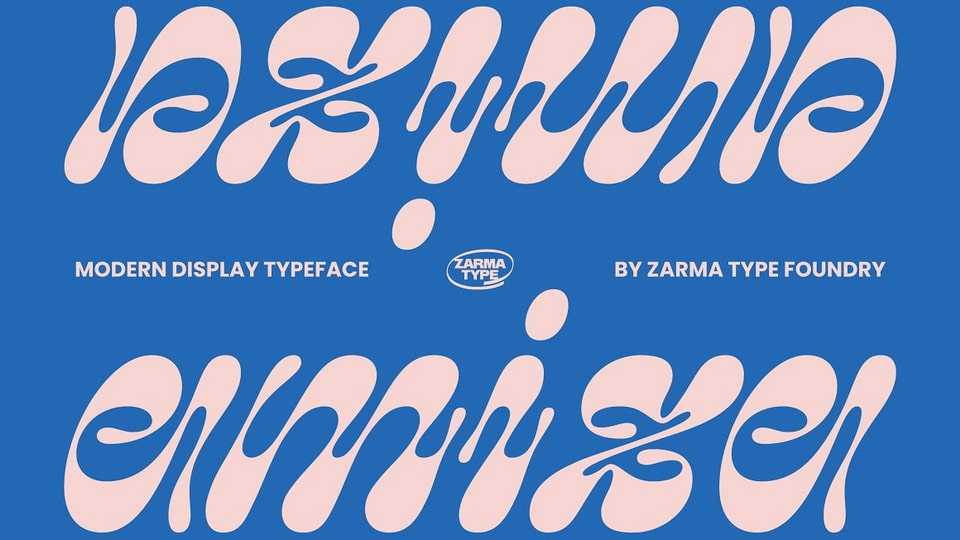
Download Amiza font, a captivating and versatile typeface inspired by psychedelic and experimental type. With its mesmerizing curves and intricate details, Amiza effortlessly combines elegance and audacity.
Designer: Zarma Type Foundry